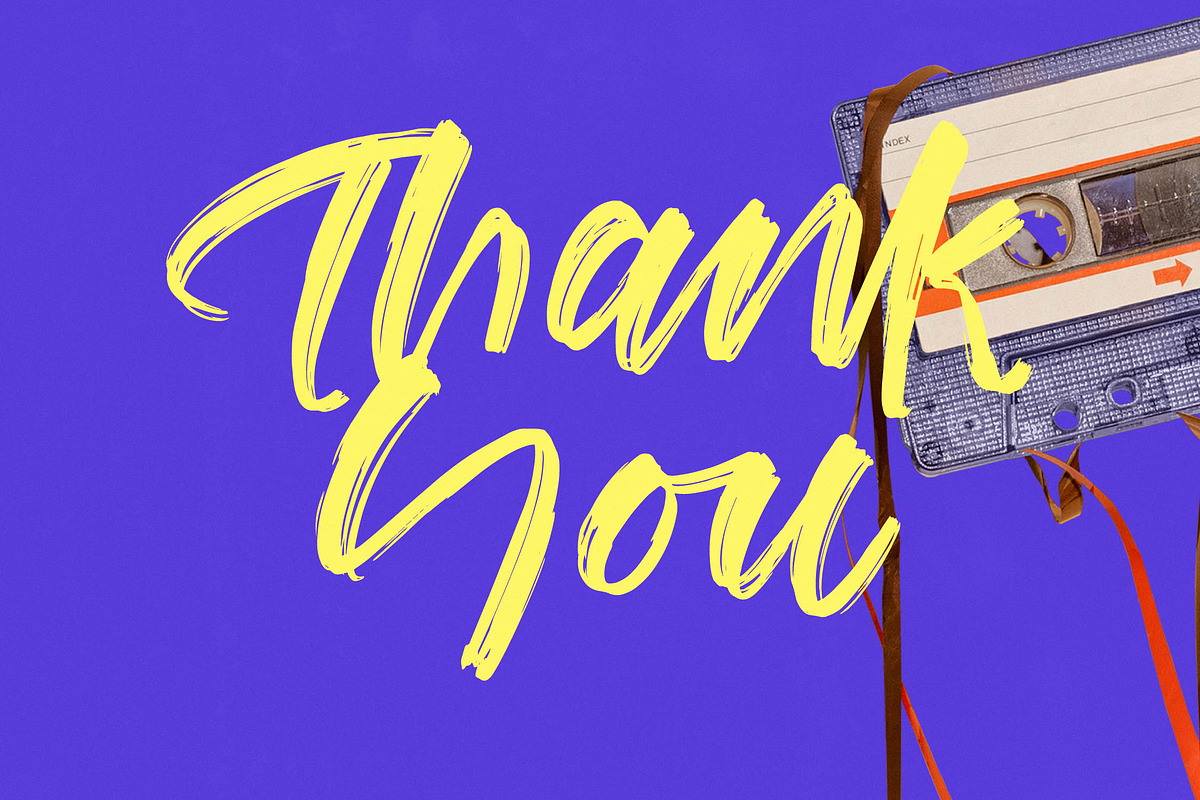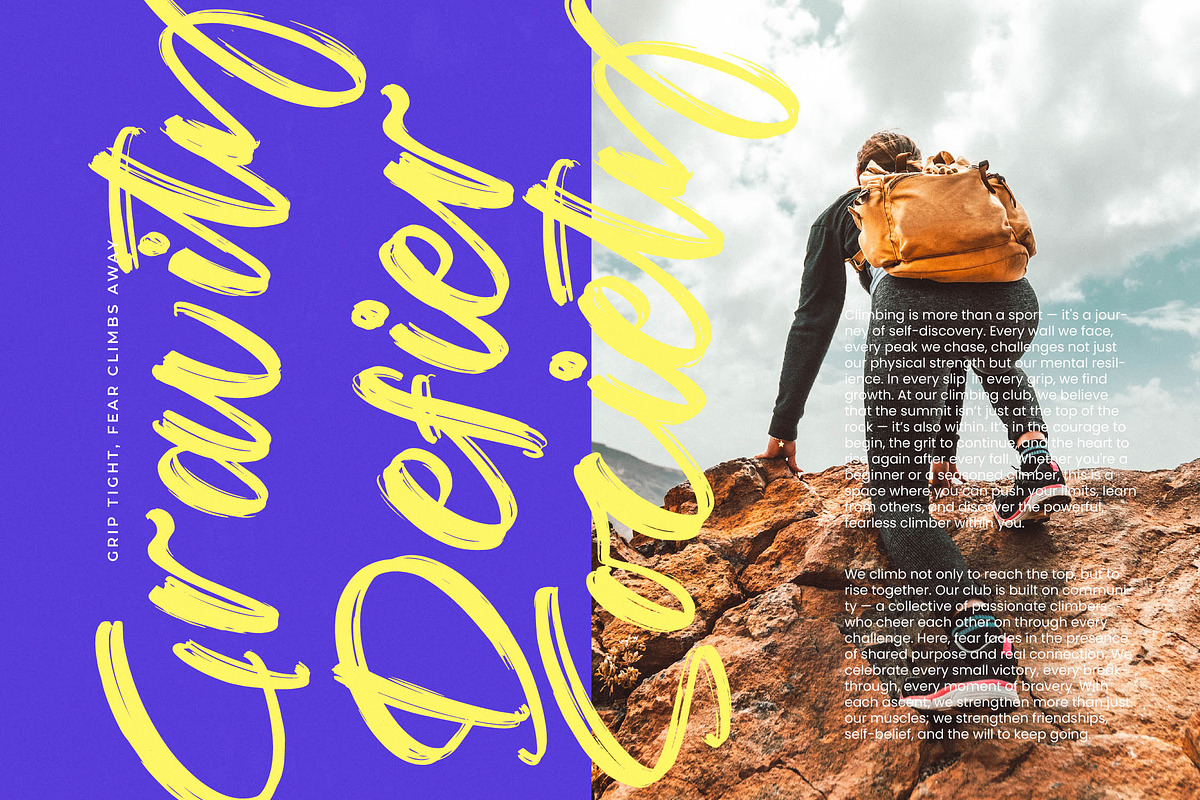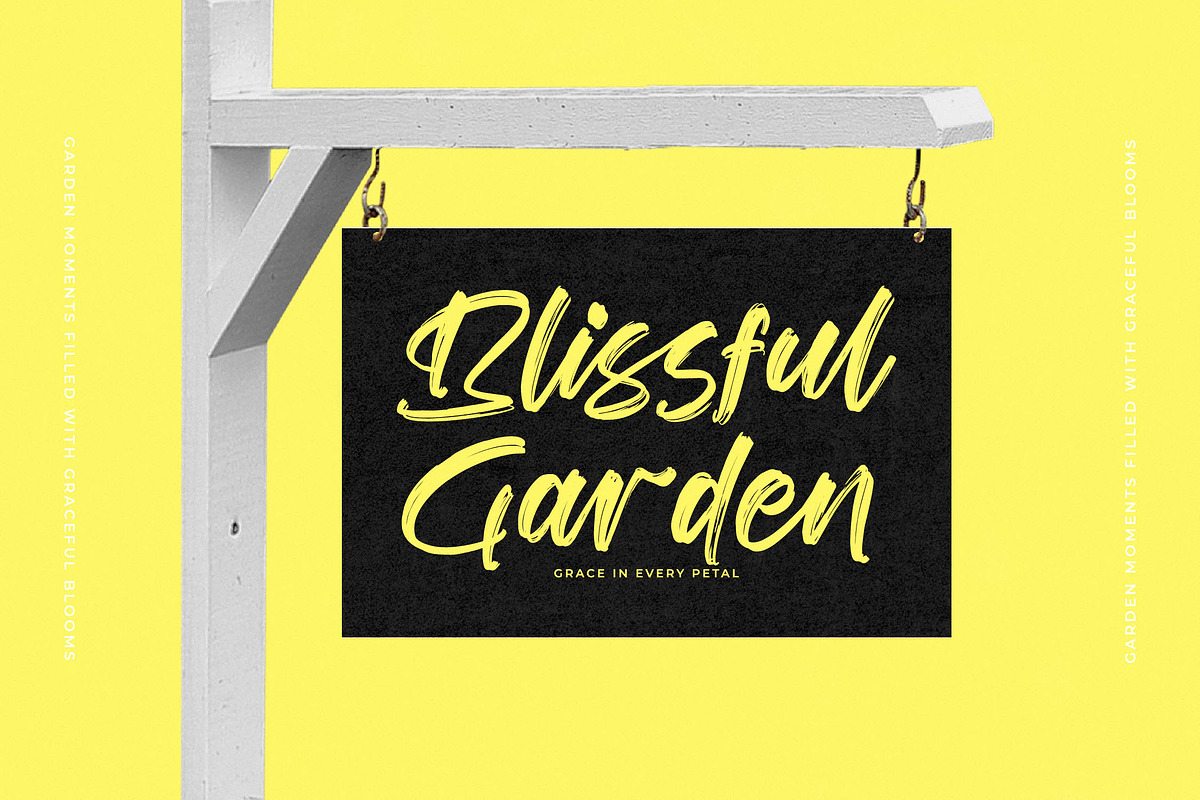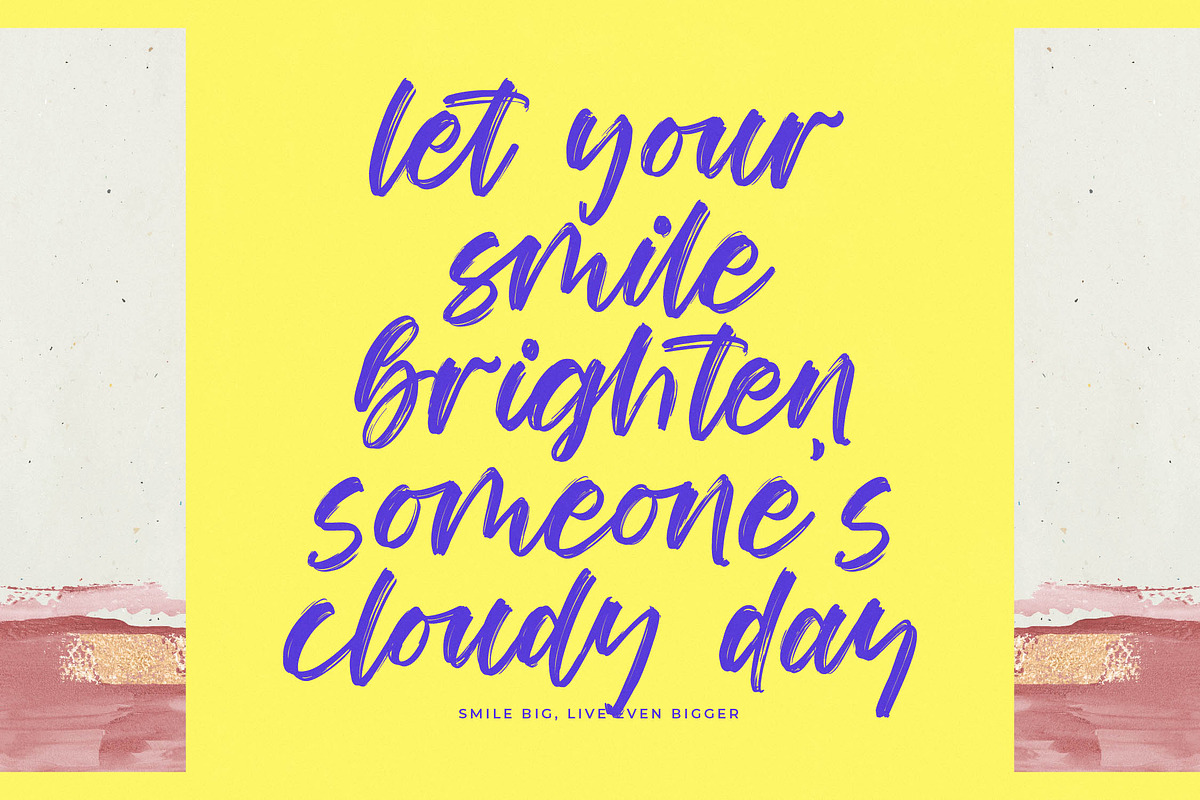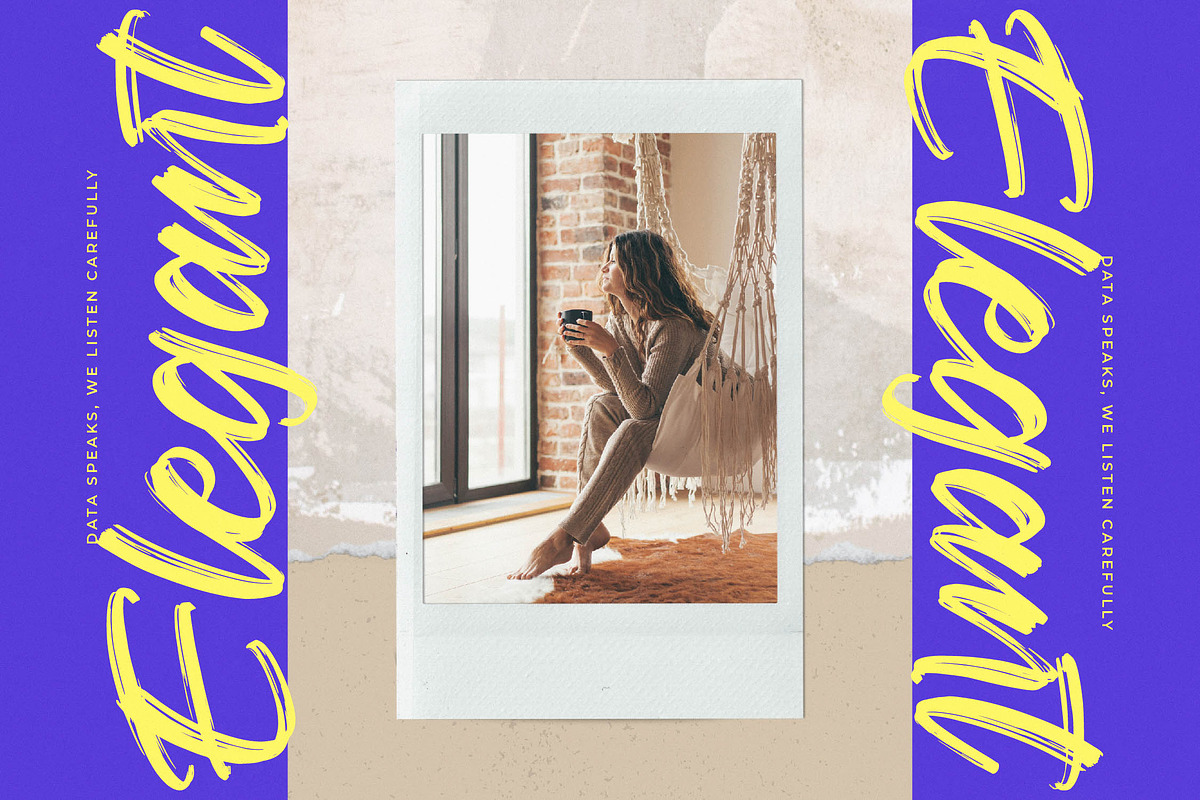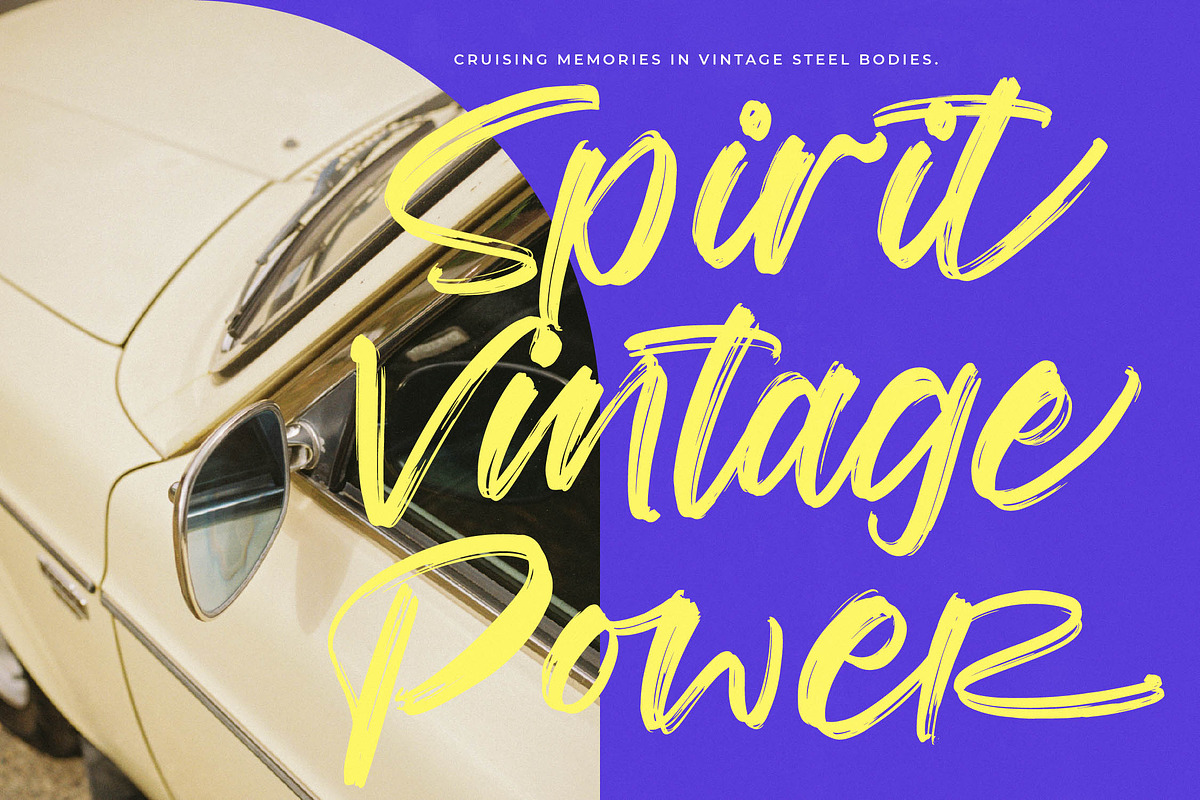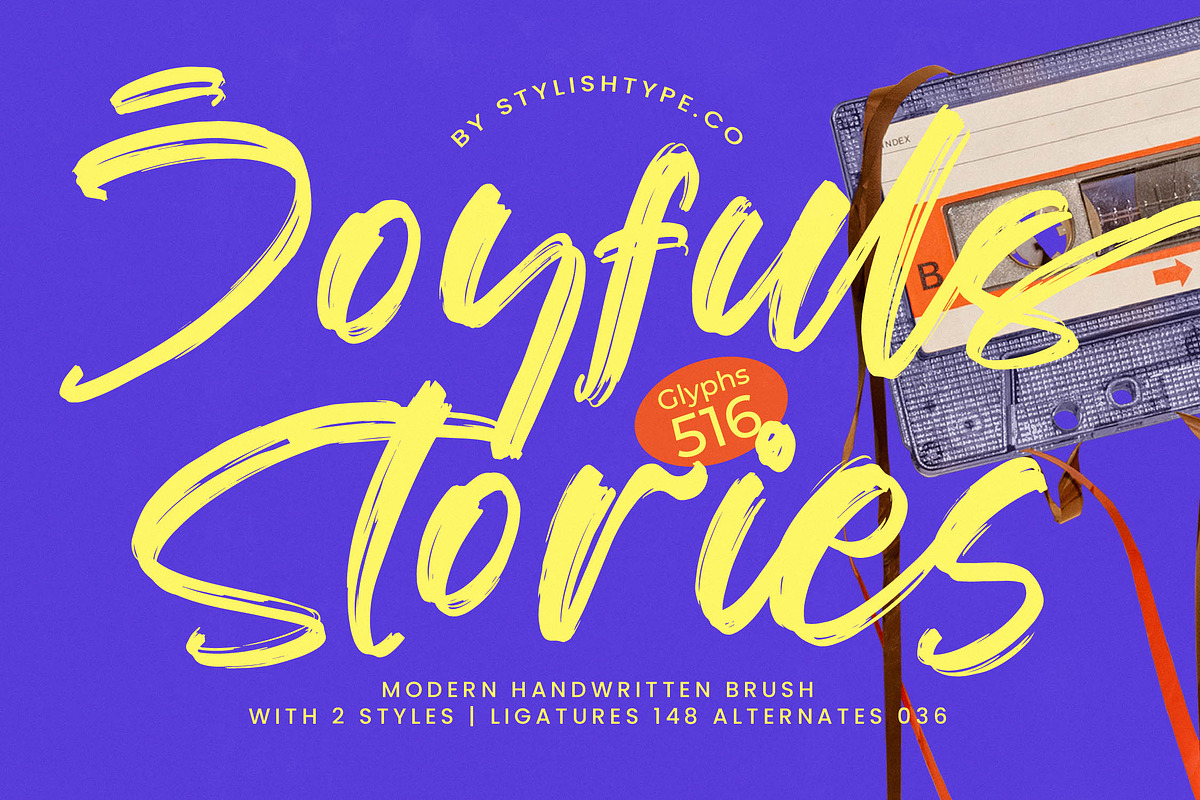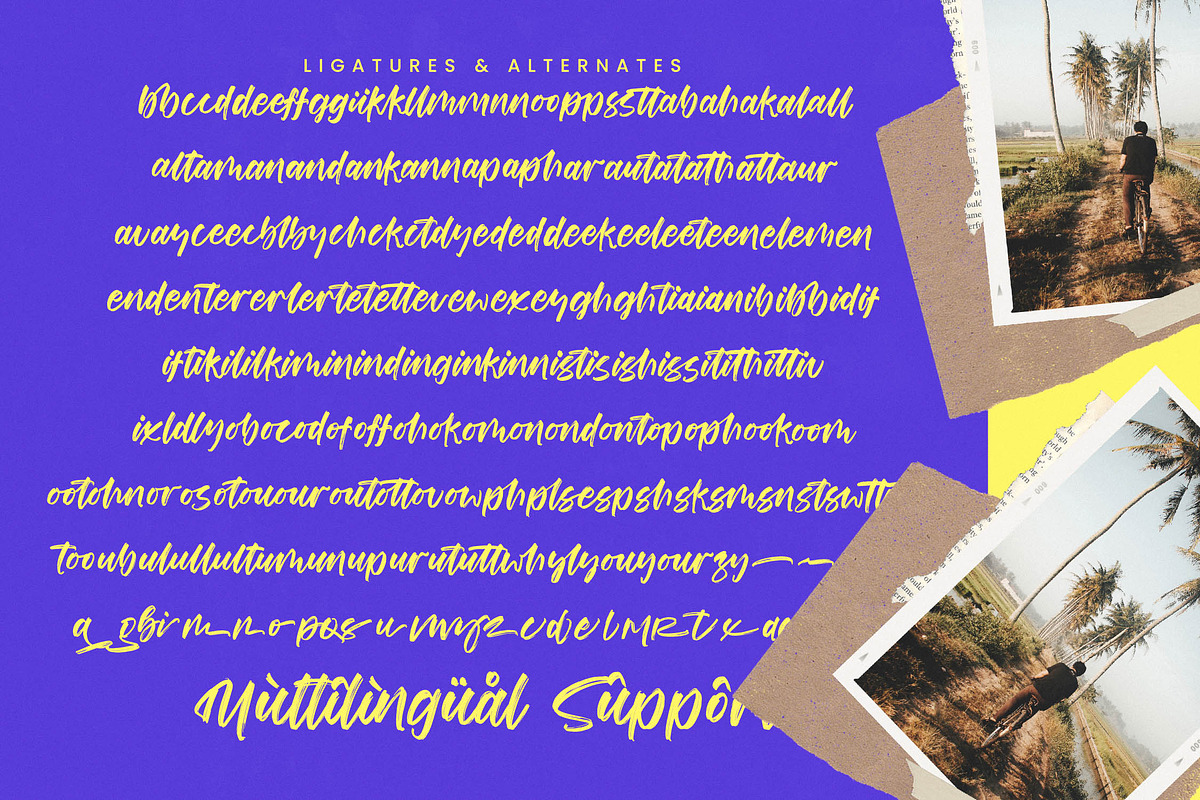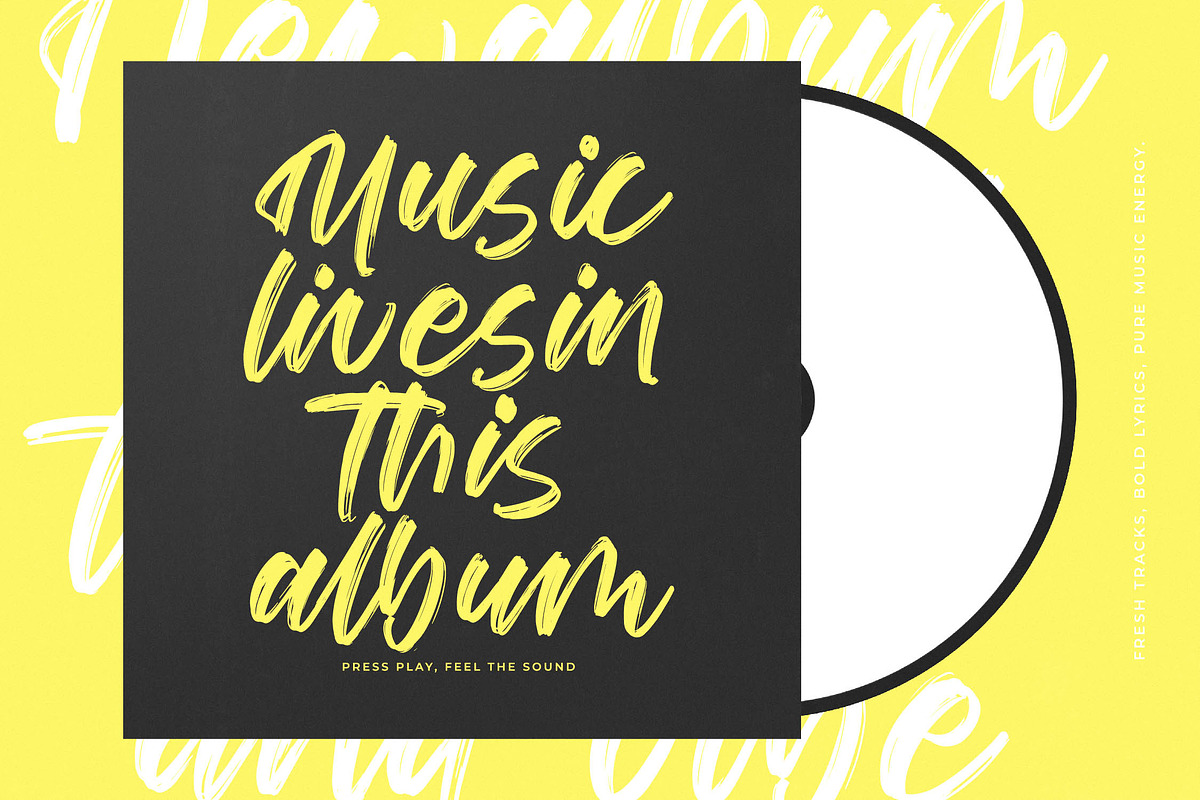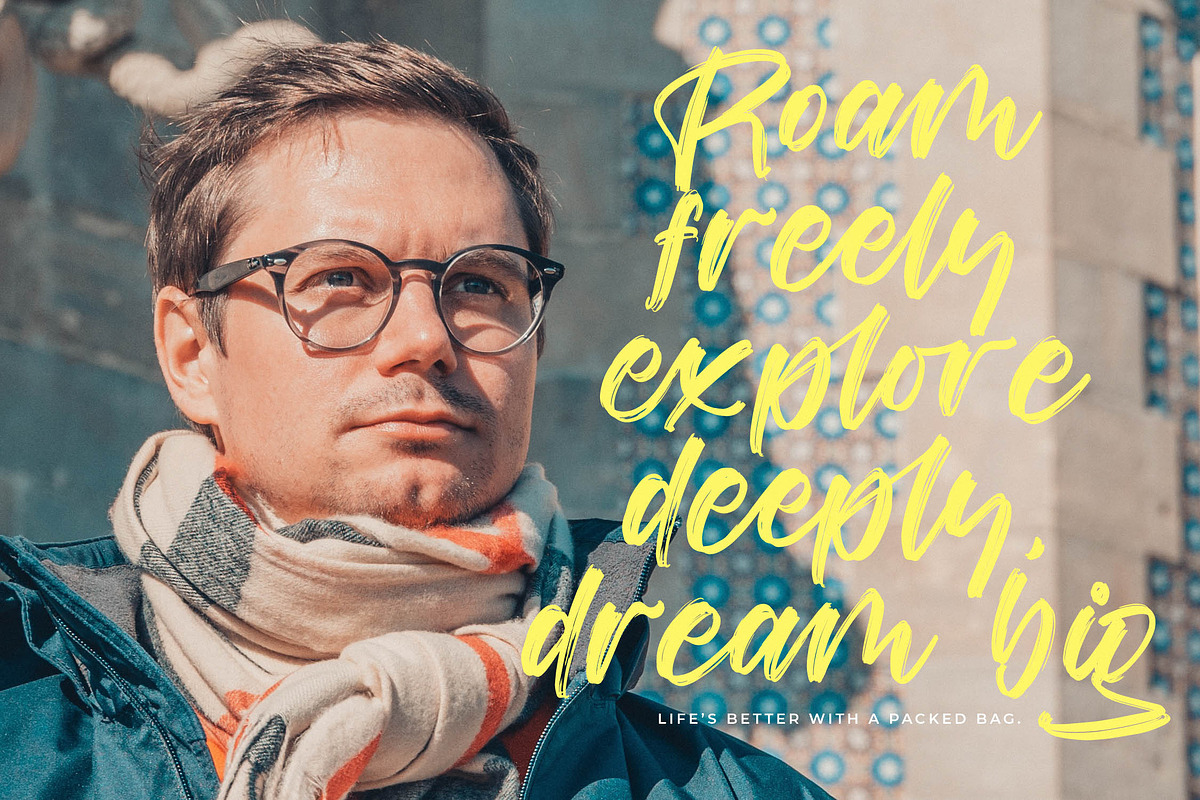
Joyfuls Stories Modern Handwritten
Joyfuls Stories - Modern Handwritten Brush , from Stylishtype.Co , Suitable for any projects such as: logos, branding projects, homeware designs, product packaging, mugs, quotes, posters, shopping bags, t-shirts, book covers, name card, invitation cards, greeting cards, label, photography, watermark, special events, and all your other luxury and beautiful projects that need a Luxury Script taste.
- 148 Ligature 036 Alternates & Swashes